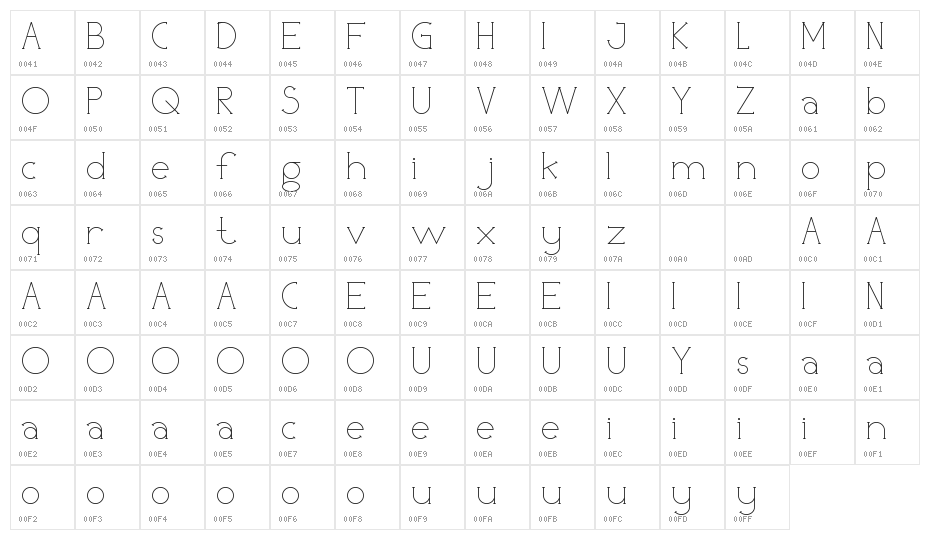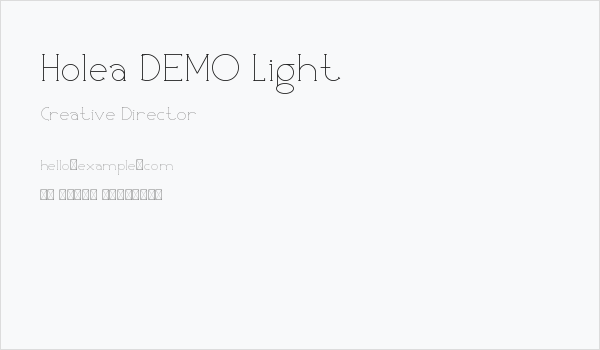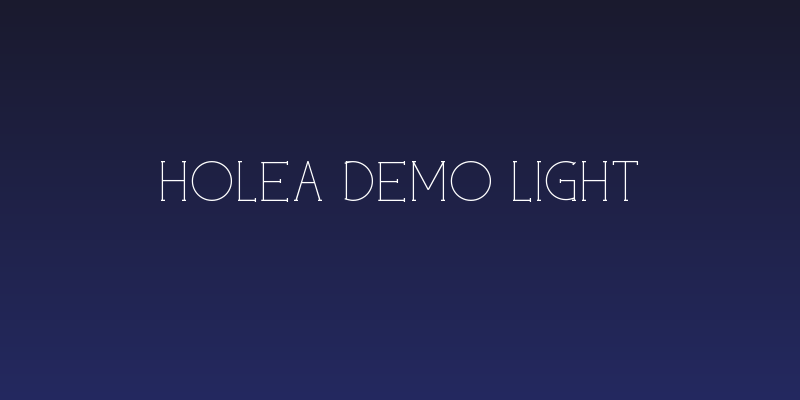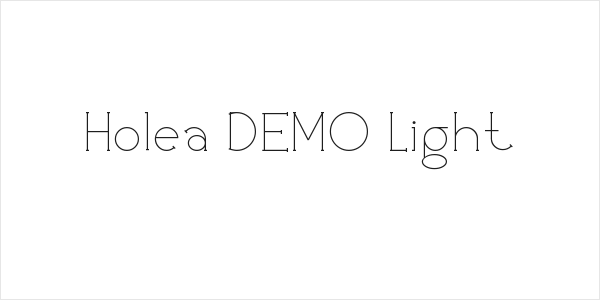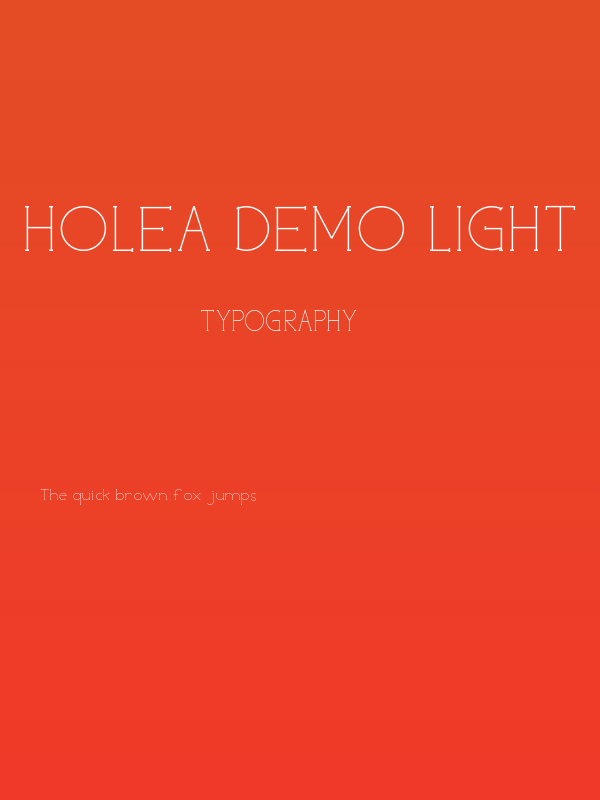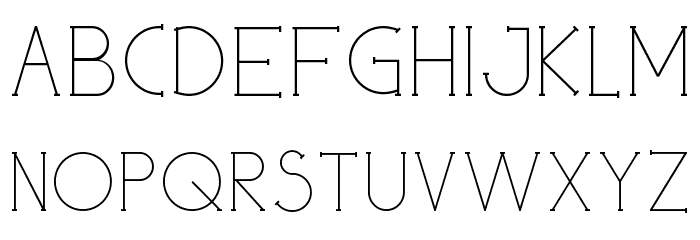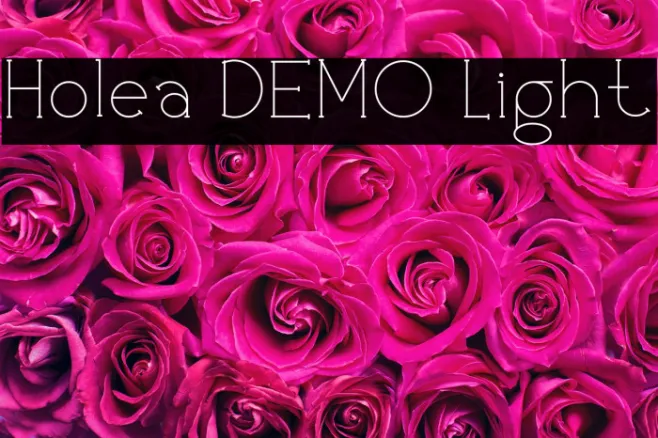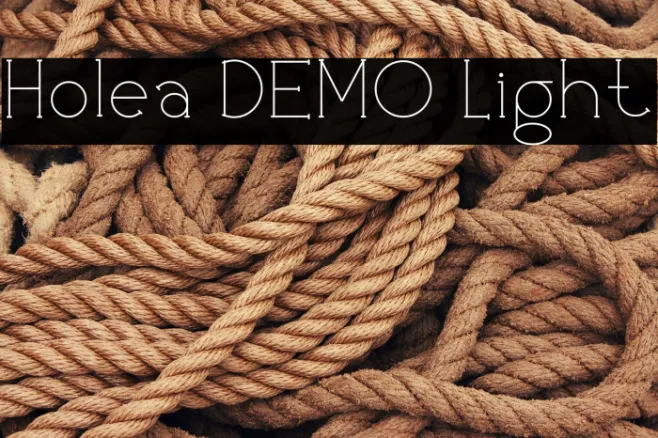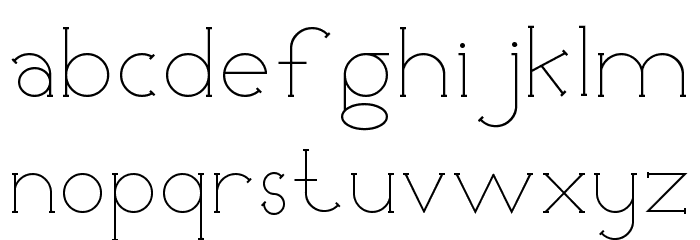
Holea DEMO Light Font
Holea DEMO Light Description
This font features a clean and modern design with thin, elegant strokes that give it a light and airy feel. The characters are well-proportioned, with a consistent height and width that ensures readability. The uppercase letters are slightly taller than the lowercase, providing a subtle distinction. The font's minimalistic style is enhanced by its geometric shapes, particularly noticeable in the rounded letters like 'O' and 'Q'. The special characters maintain the same thin stroke, ensuring uniformity across the set. This font is ideal for projects that require a sophisticated and contemporary look.
| Proposed Projects | Ideal for branding, editorial design, and digital media where a modern and sophisticated appearance is desired. |